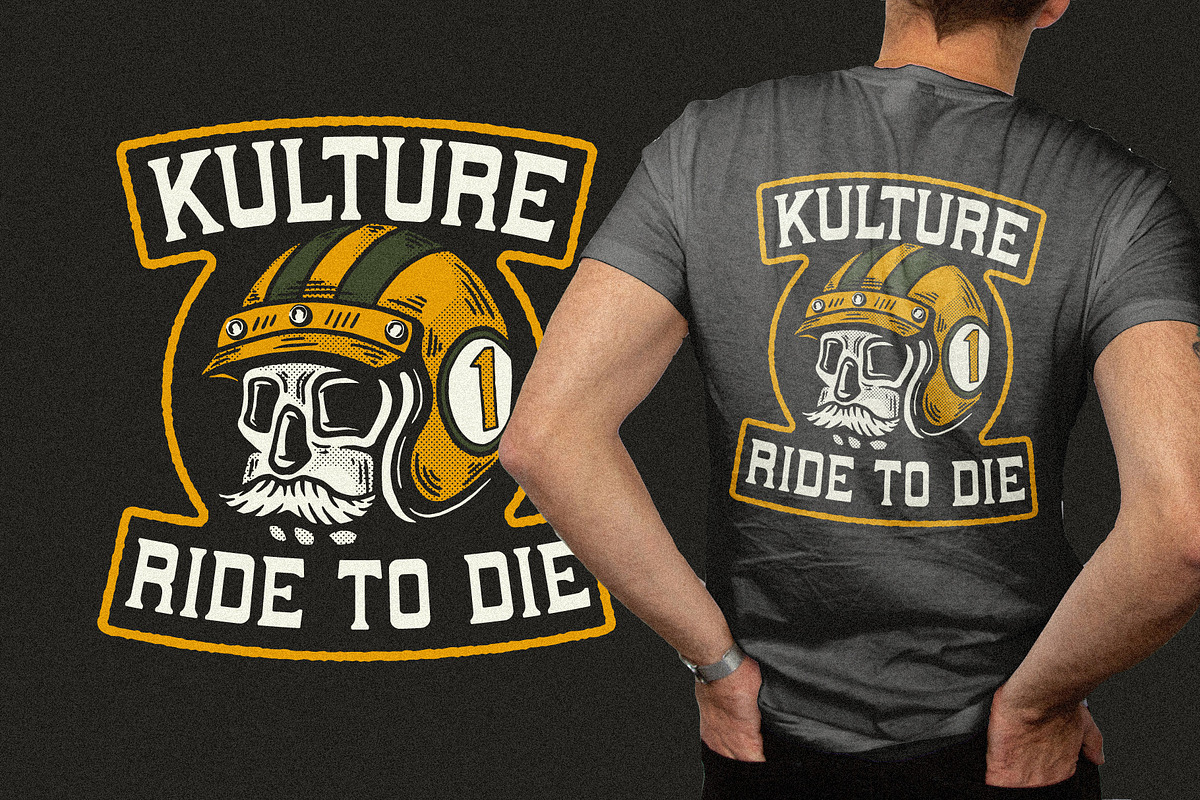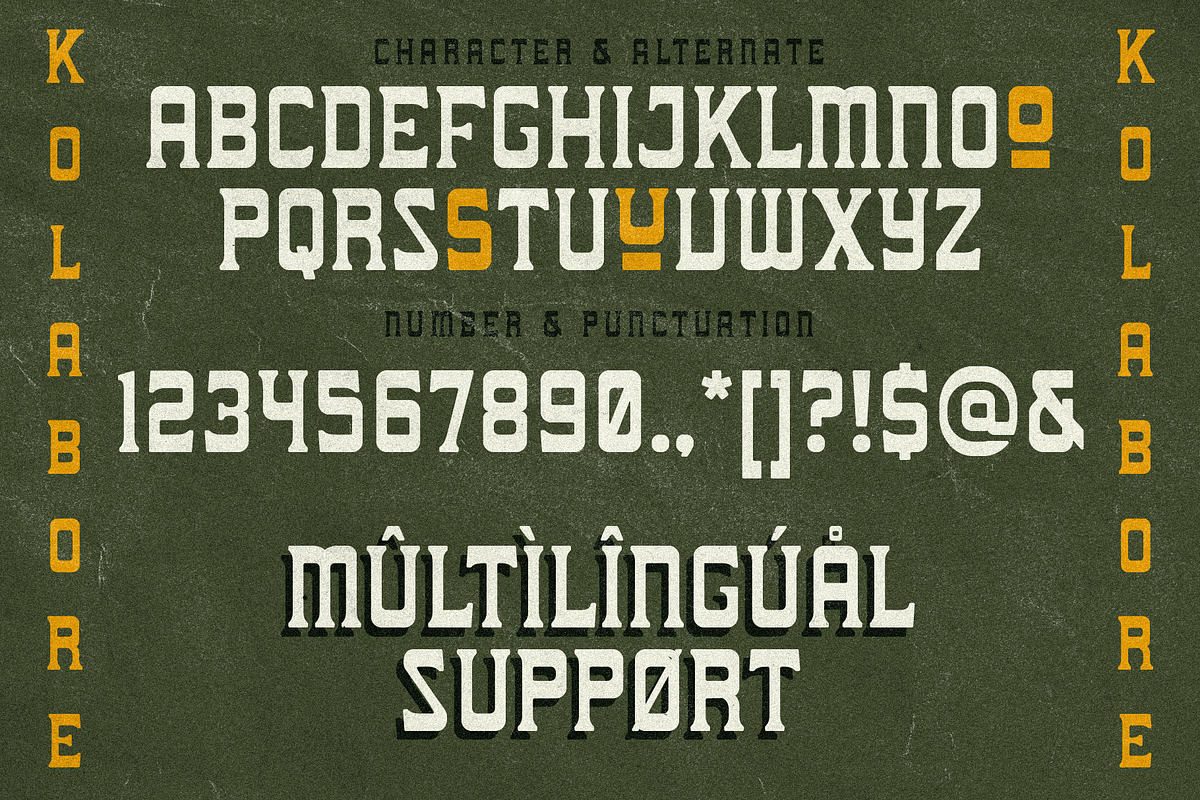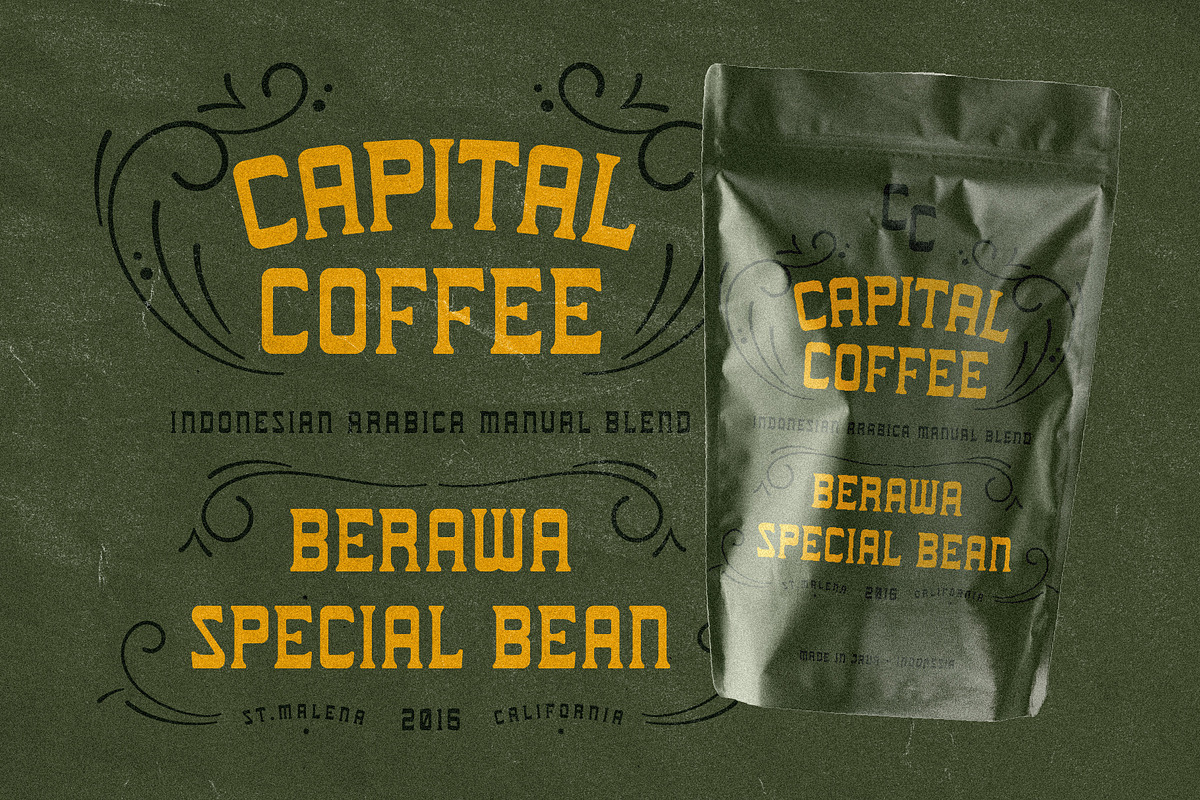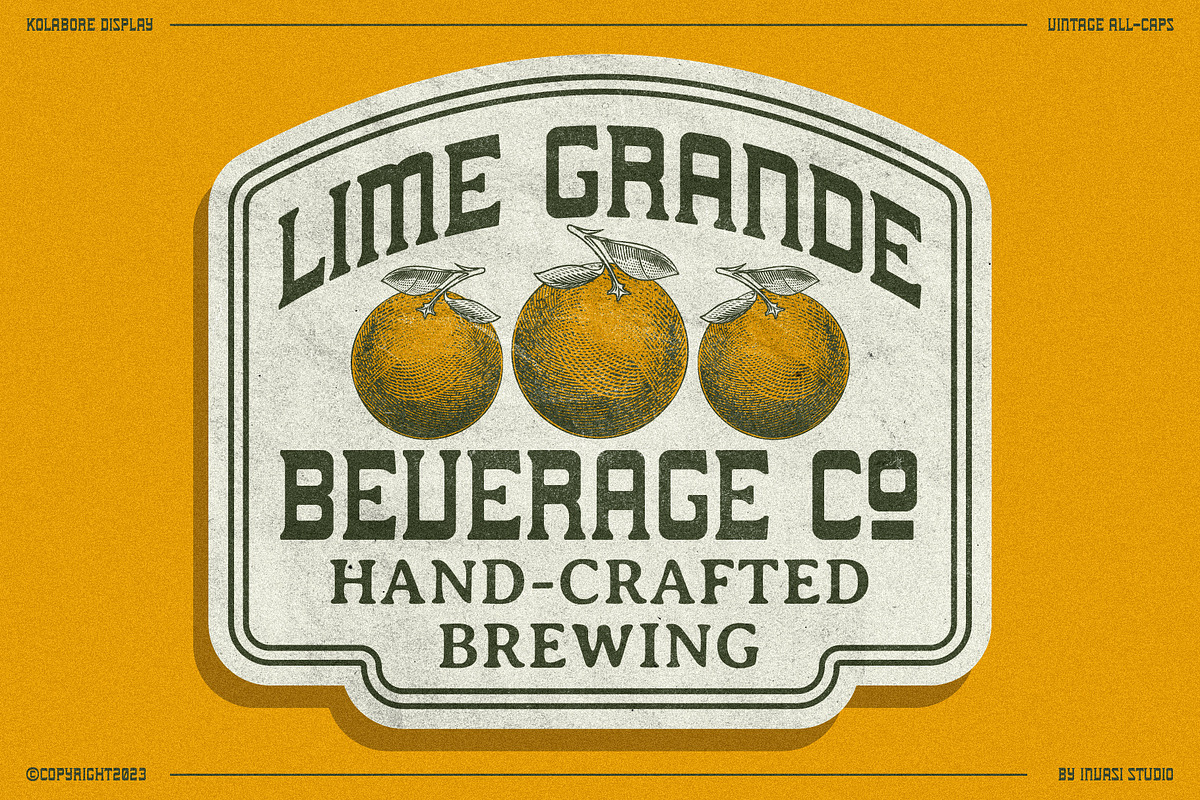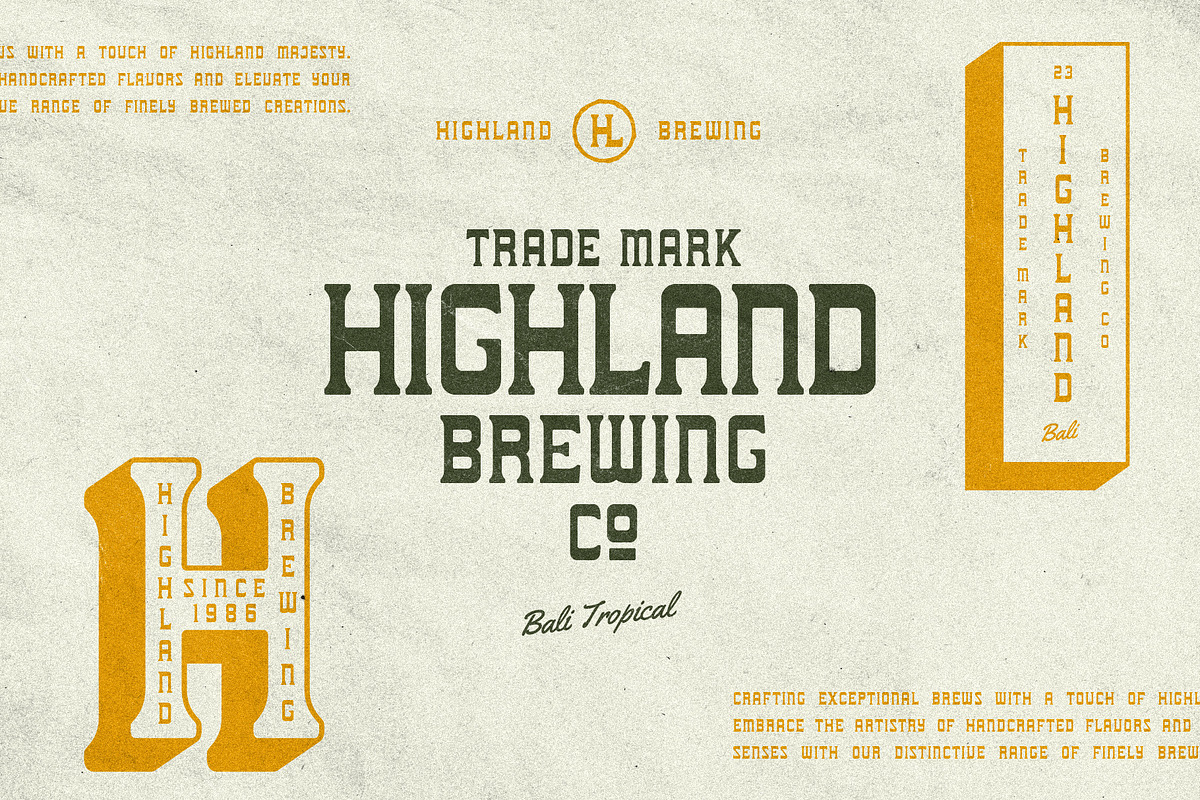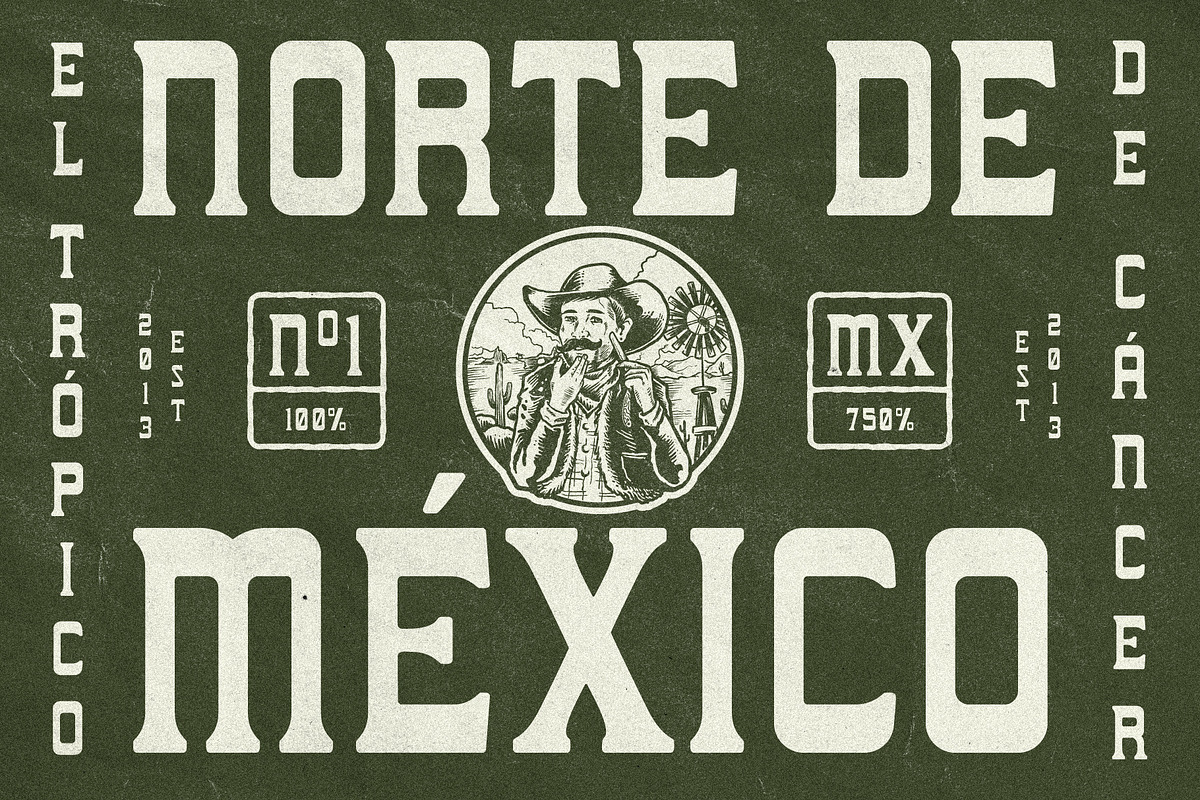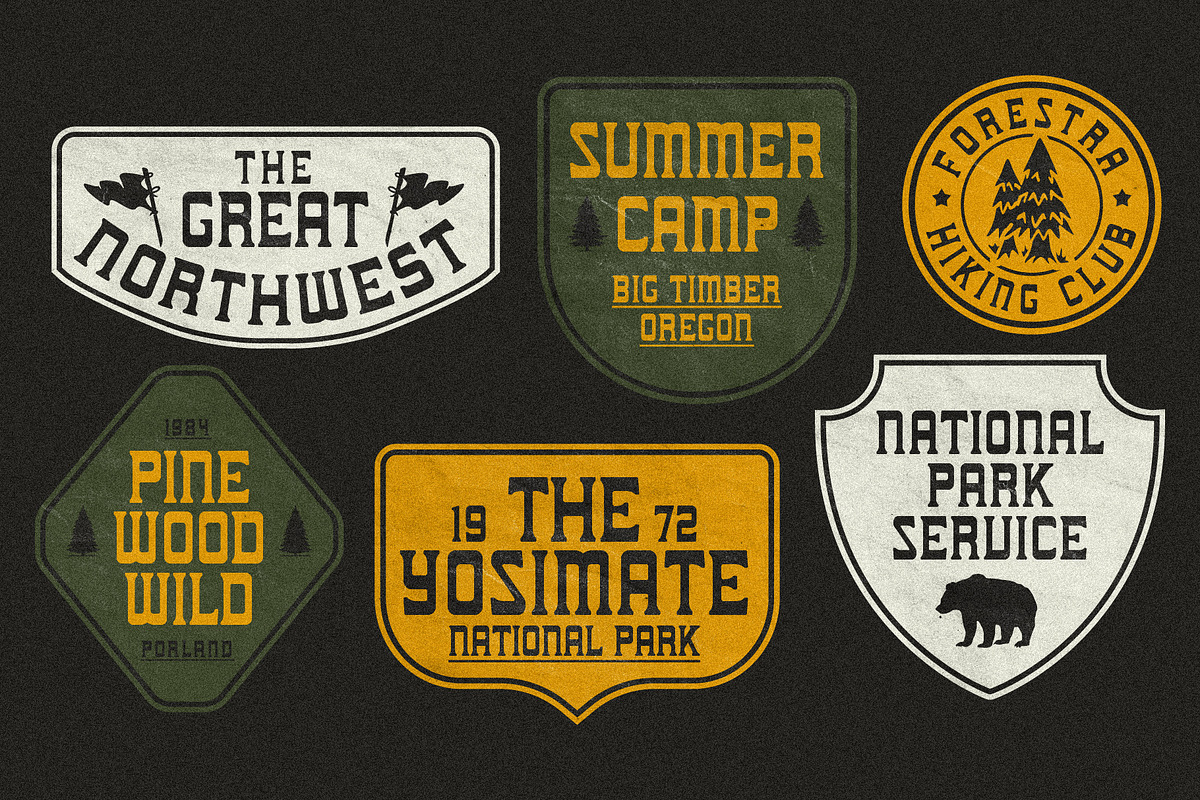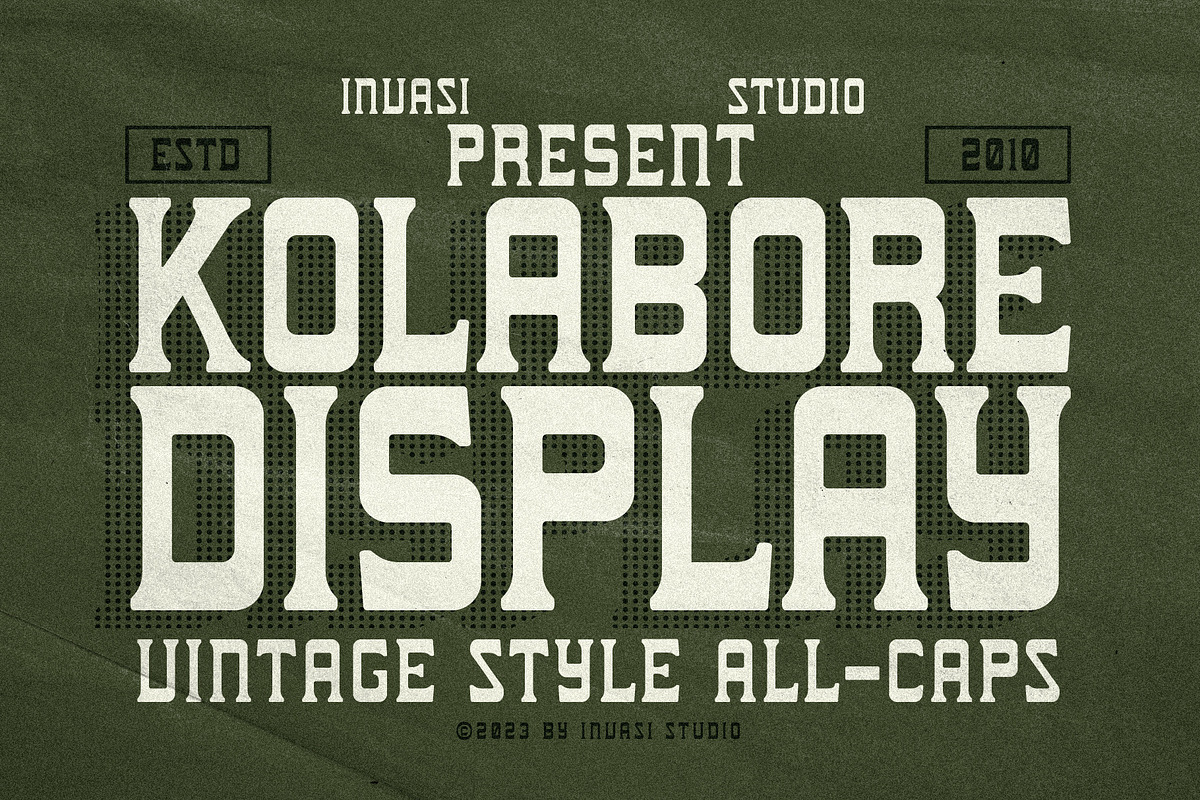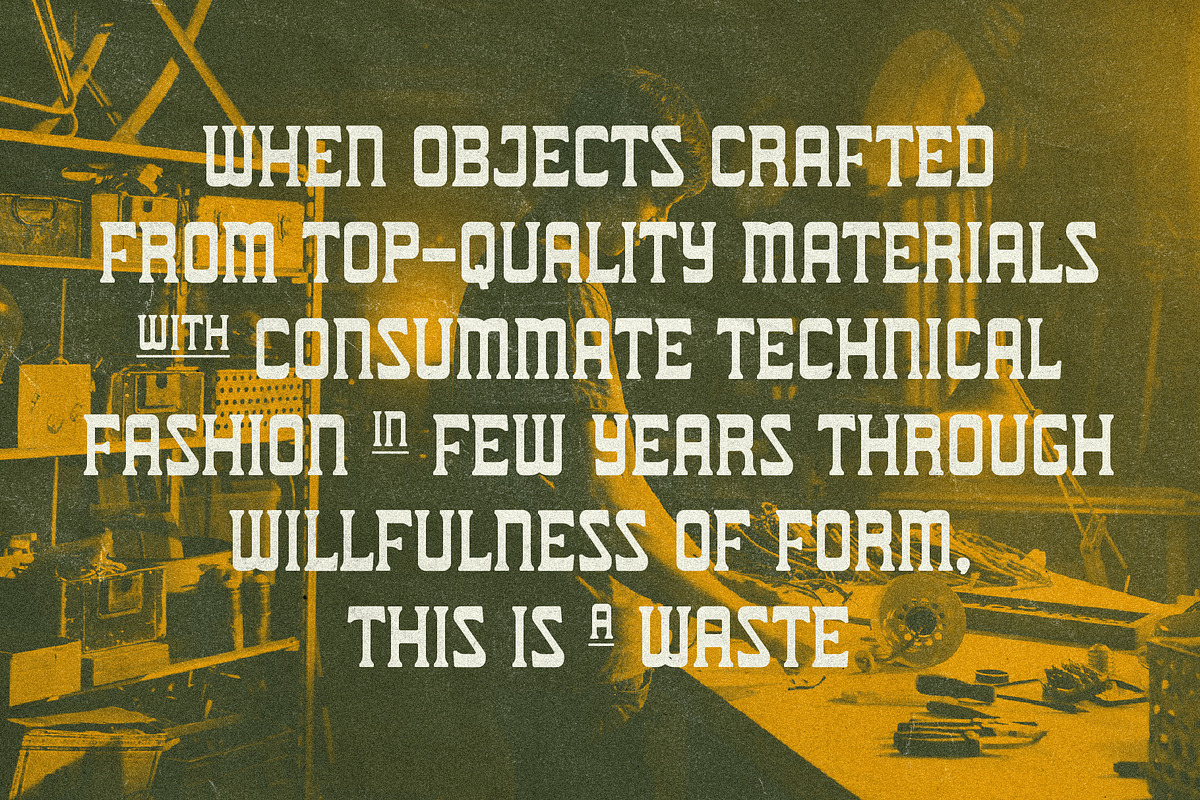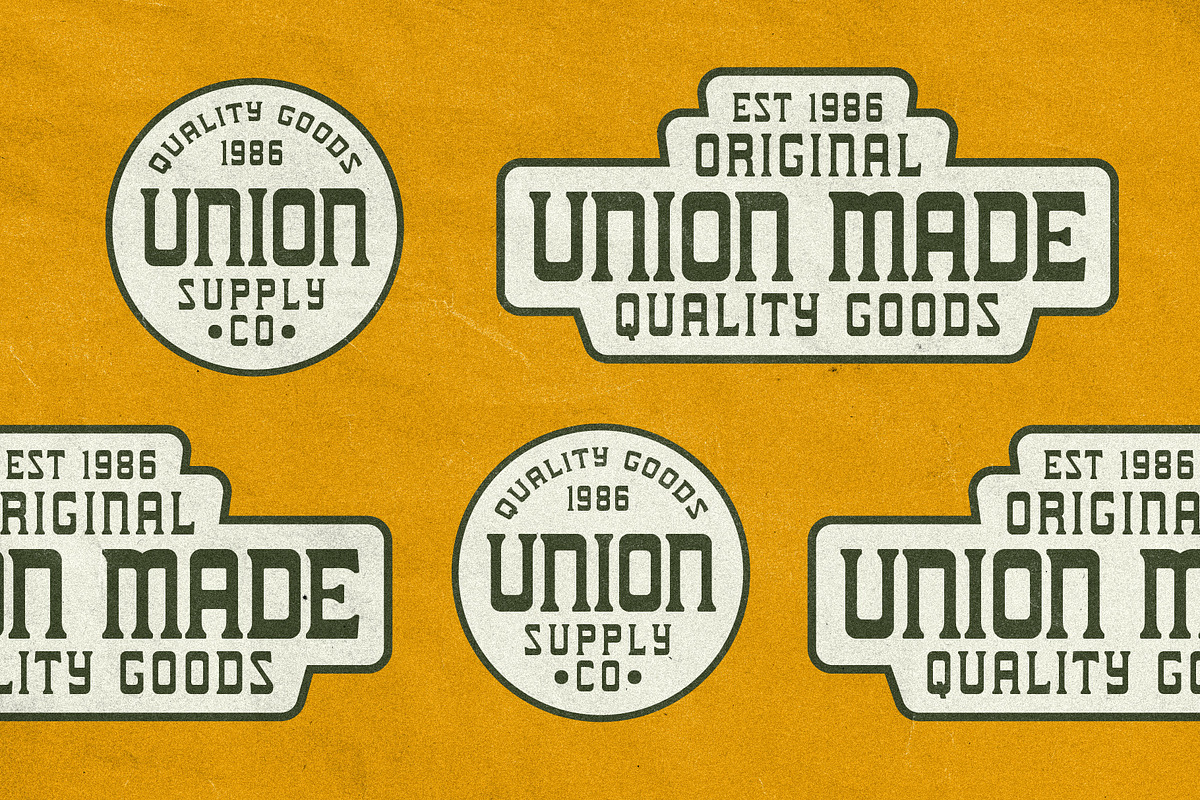
Kolabore - vintage Display
Step into the world of vintage charm with Kolabore typeface, a bold all-caps font that pays homage to ephemera vintage badges. Channeling a classic aesthetic, this font adds a touch of timeless appeal to your designs while boasting unique and distinct characteristics that set it apart. With alternate glyphs and multilingual support, Kolabore ensures versatility for your creative projects.
Highly legible and effortlessly readable, this font is your go-to choice for creating captivating headlines, impactful titles, eye-catching posters, dynamic flyers, enticing packaging, and memorable logos. Let Kolabore typeface infuse your designs with the charm of vintage badges while adding a modern twist that resonates across time. Get ready to elevate your creations and capture attention with the enchanting allure of Kolabore font!
- Multilanguage Supports 60+ Latin-based languages